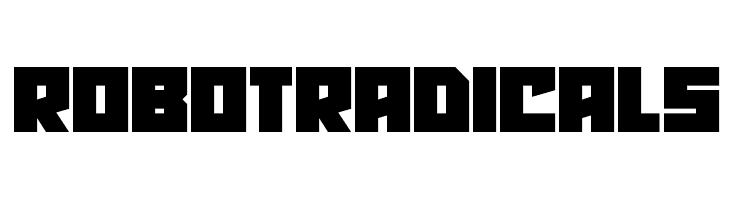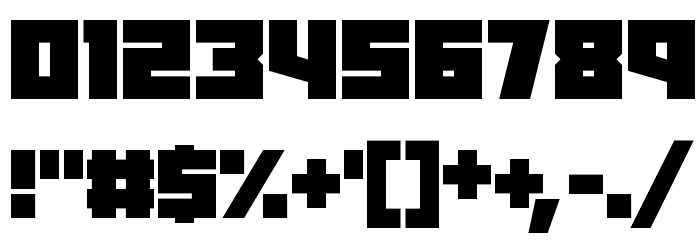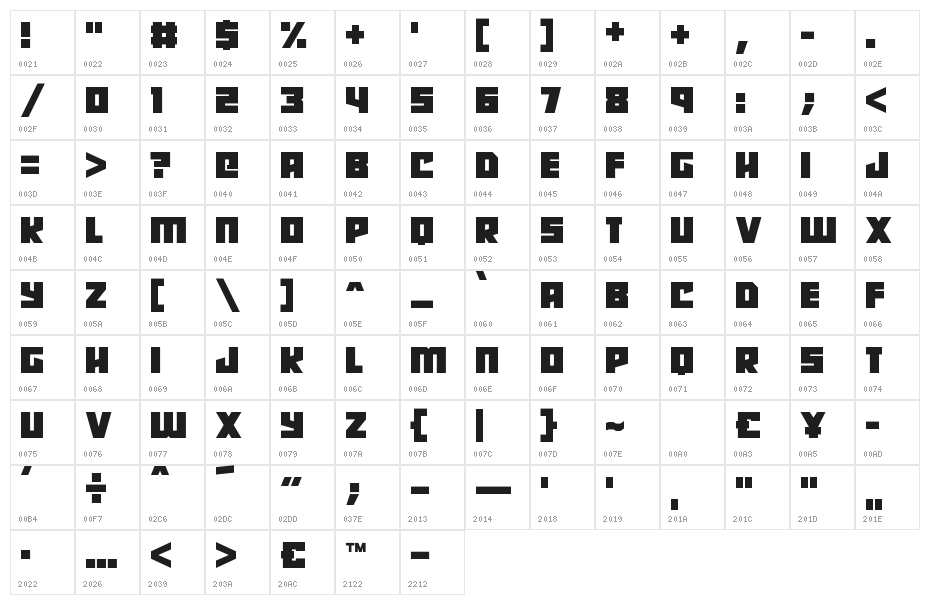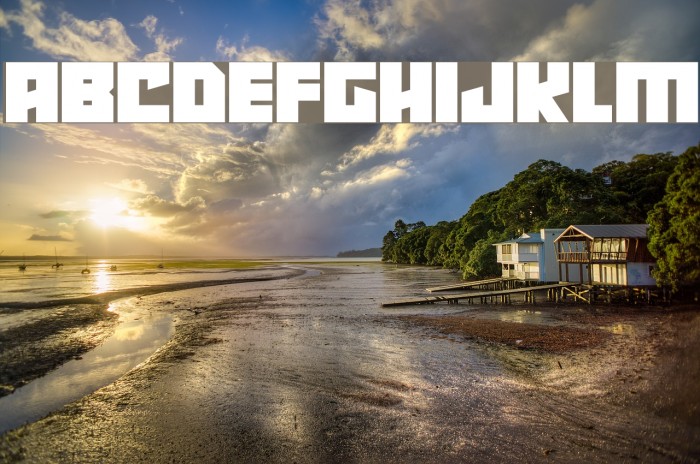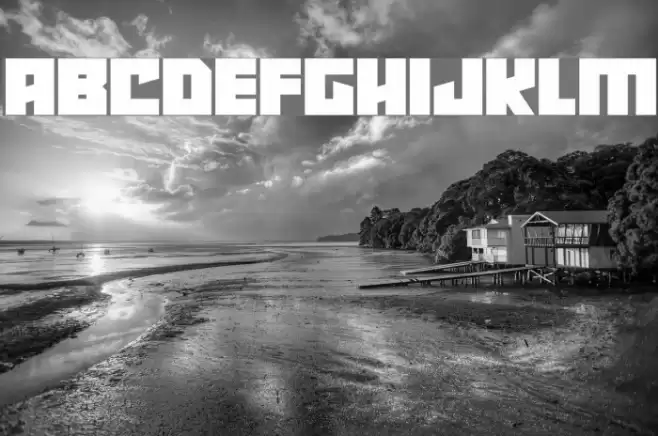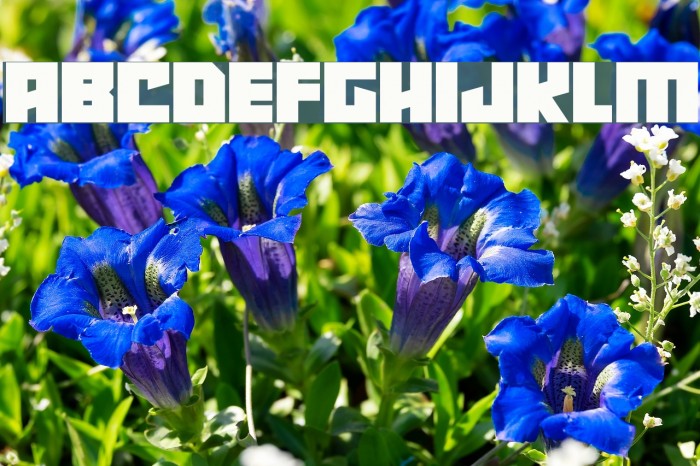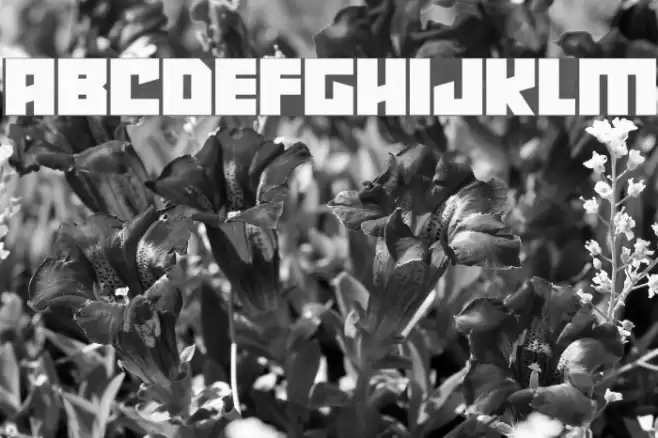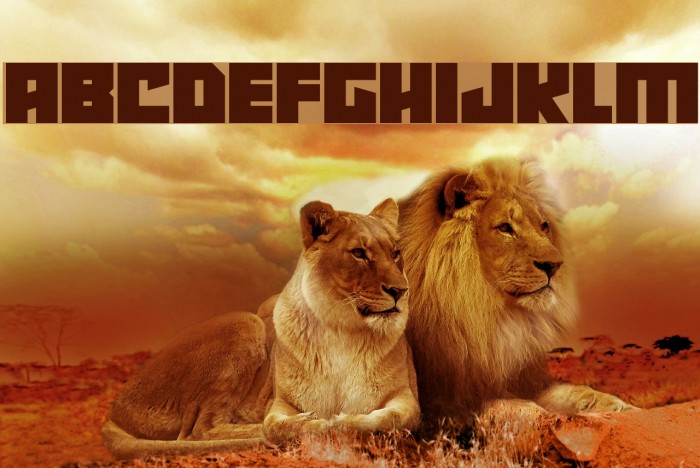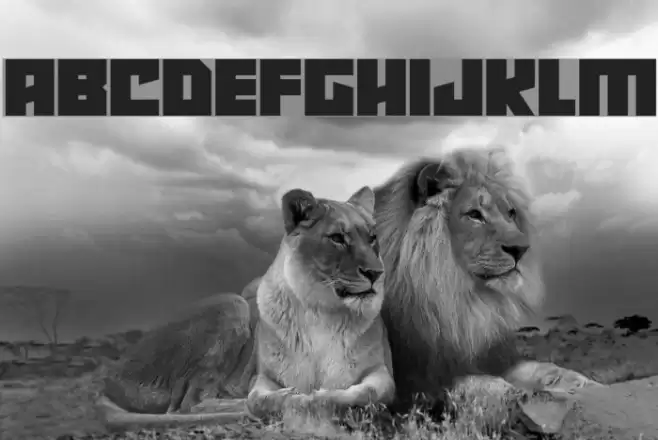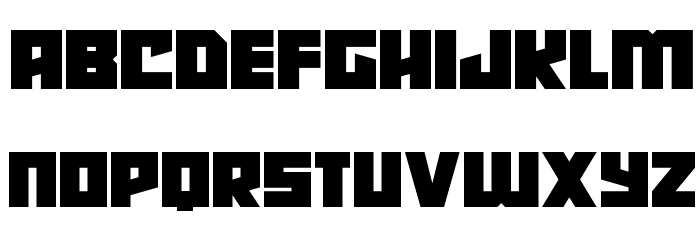
Robot Radicals Font
Robot Radicals Description
This font features a bold, geometric design with a futuristic and robotic aesthetic. The characters are constructed with sharp angles and straight lines, giving them a blocky and industrial appearance. The uppercase and lowercase letters maintain a consistent height, contributing to a uniform and cohesive look. The numerals and special characters follow the same design principles, ensuring visual harmony across all glyphs. The font's style is reminiscent of digital and technological themes, making it suitable for projects that require a modern and edgy feel. Its strong presence and high legibility make it ideal for impactful headlines and titles.